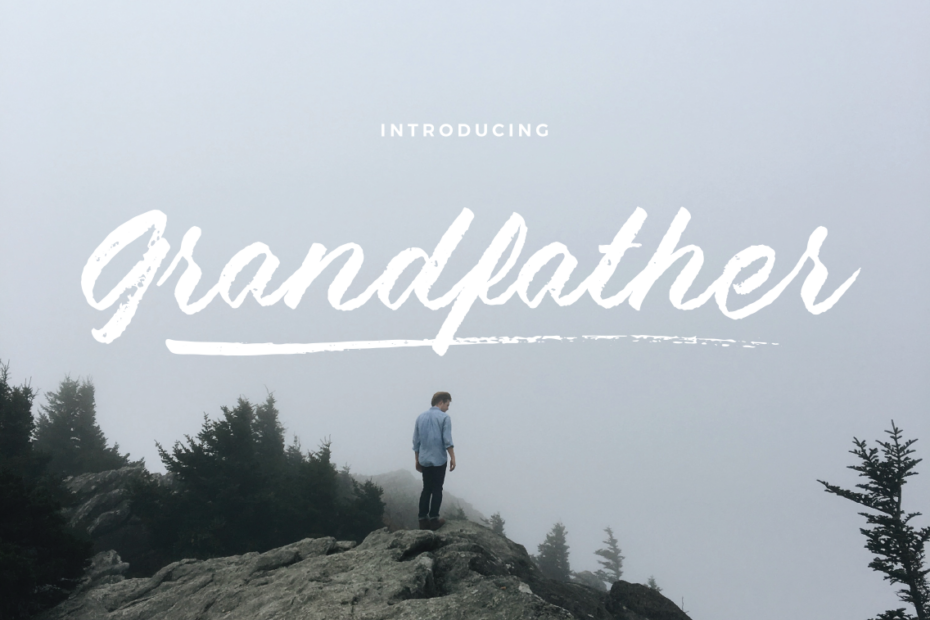
Discover the Handcrafted Charm of Grandfather Font
Have you ever been brainstorming a design project, flipping through your font library, and suddenly, the perfect font appears? That’s exactly what happened to many designers when they stumbled upon Grandfather Font. This handwritten brush script font is more than just a pretty face – it’s a tool that can elevate your designs and give them a truly unique touch.
Named after the iconic Grandfather Mountain in North Carolina, Grandfather Font takes its inspiration from the natural beauty of the great outdoors. With its bouncy baseline and flowy connections, it’s perfect for display projects that need a little extra oomph. Whether you’re creating a poster, a brochure, or a social media campaign, Grandfather Font is sure to bring a handcrafted feel to your work.
Grandfather Font Key Features
- Size: Designed to be used at larger font sizes, typically ranging from 12 to 24 points.
- Resolution: Optimized for use at high resolutions, making it suitable for print and digital displays.
- Unique Characteristics: Features a classic, elegant design with distinctive flourishes and ornate details.
- Legibility: Designed to be highly legible at larger font sizes, making it ideal for use in titles and headings.
- Font Style: Available in a range of styles, including regular, italic, bold, and bold italic.
Grandfather Font Review
Grandfather Font, designed by Pablo Gavira, has a certain charm to it. ✨ The font’s unique, hand-drawn style gives it a warm and friendly feel that’s perfect for projects that need a touch of personality. The font’s various weights and styles allow for a lot of flexibility in terms of usage, from body text to headings.
- Wide range of weights and styles to suit different design needs
- Hand-drawn feel adds a touch of uniqueness to designs
- Supports a wide range of languages, including Latin, Cyrillic, and Greek scripts
However, there are some limitations to consider. ⚠️ The font’s irregular shapes and lines can make it challenging to read, especially at smaller font sizes. Additionally, the font’s OpenType features can be overwhelming for non-technical users.
- Irregular shapes and lines can affect readability at smaller font sizes
- OpenType features may be difficult to navigate for non-technical users
Overall, Grandfather Font is a solid choice for designers looking for a unique and expressive font. While it may not be suitable for all design projects, its charm and versatility make it a great option for those who want to add some personality to their work.
The Grandfather Font is commonly used for:
- Designing vintage-inspired graphics and logos.
- Creating a nostalgic and classic look for branding and marketing materials.
- Adding a touch of elegance and sophistication to wedding invitations and other special occasion stationery.
Alternatives to Grandfather Font
Playfair Display is an elegant, high-end serif font suitable for titles and headings. It is ideal for formal and luxury brands. Compared to Grandfather Font, Playfair Display has a more refined and sophisticated feel, making it perfect for high-end designs.
Didot is a luxurious serif font that exudes elegance and sophistication. It is suitable for high-end fashion, luxury brands, and formal designs. Compared to Grandfather Font, Didot has a more refined and classical feel, making it perfect for designs that require a touch of sophistication.
Bodoni is a classic serif font that is perfect for formal and elegant designs. It is suitable for high-end fashion, luxury brands, and formal titles. Compared to Grandfather Font, Bodoni has a more refined and classic feel, but with a slightly more modern twist, making it perfect for designs that require a touch of sophistication and elegance.
Clarendon
Clarendon is a classic serif font that is perfect for formal and elegant designs. It is suitable for high-end fashion, luxury brands, and formal titles. Compared to Grandfather Font, Clarendon has a more refined and classic feel, but with a slightly more modern and bold twist, making it perfect for designs that require a touch of sophistication and elegance.